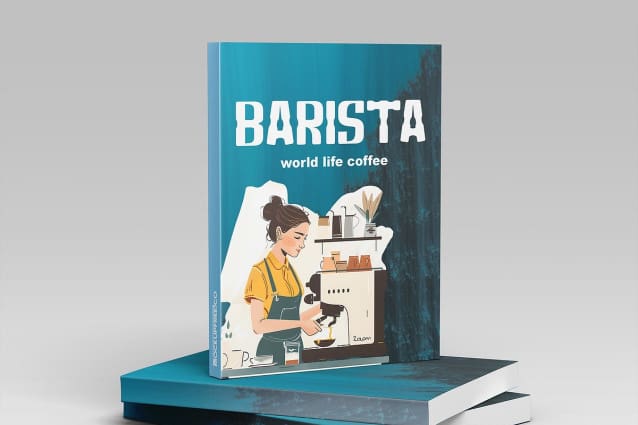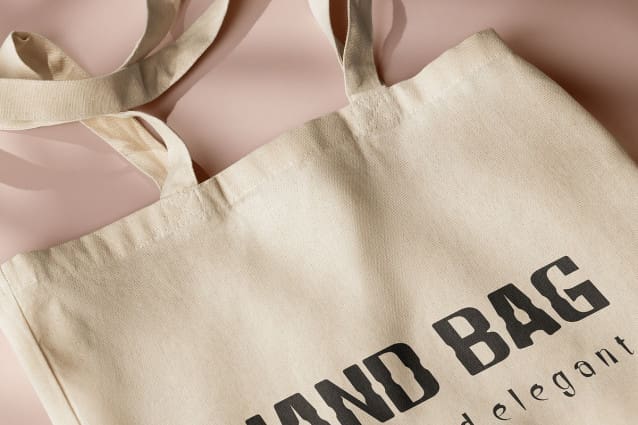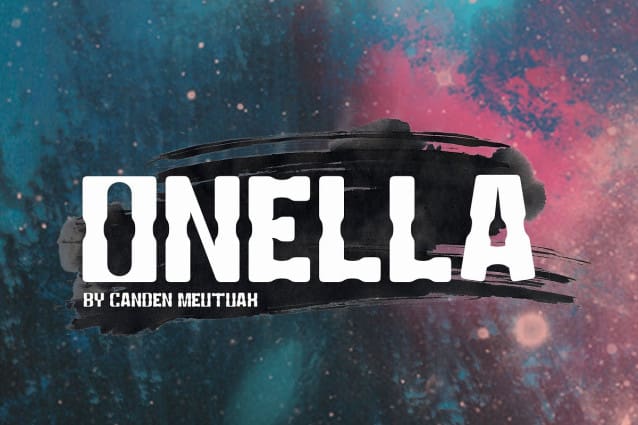
Onella Font
Onella Font is a geometric family typeface available in nine thicknesses. This is a simple and elegant modern font family, this font family is very suitable especially for headlines, titles, brands, posters, packaging, titles, logos, and so on. thank you